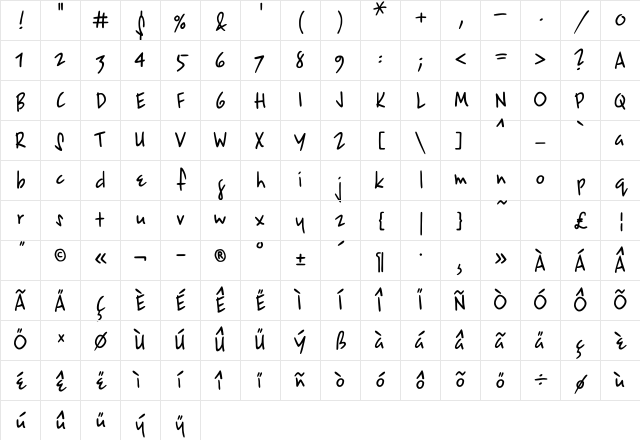
Complete Epsilon Normal glyph index. Displaying only characters natively supported by Epsilon Normal font.
Epsilon is a composed and adaptable typeface that performs quietly and consistently across a wide range of design contexts.